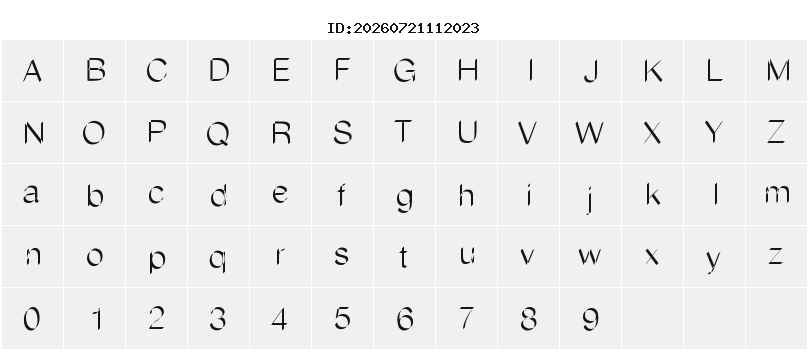
Flatstock Preview
About Flatstock.ttf
Flatstock.ttf is a modern, elegant sans-serif font designed for ultimate readability and visual harmony. Perfect for branding, headlines, web design, and print materials.